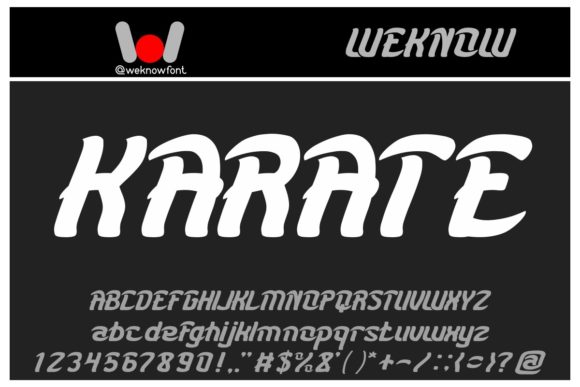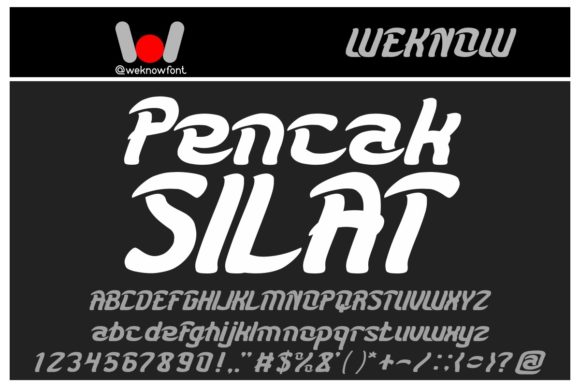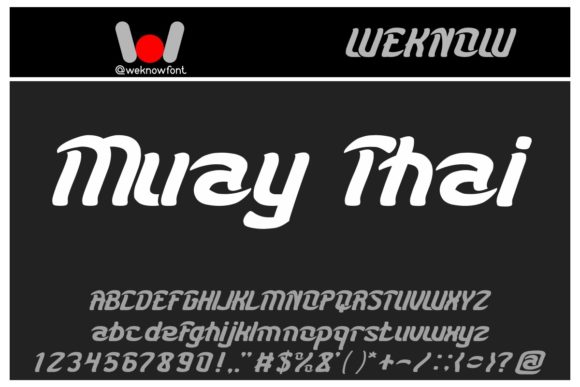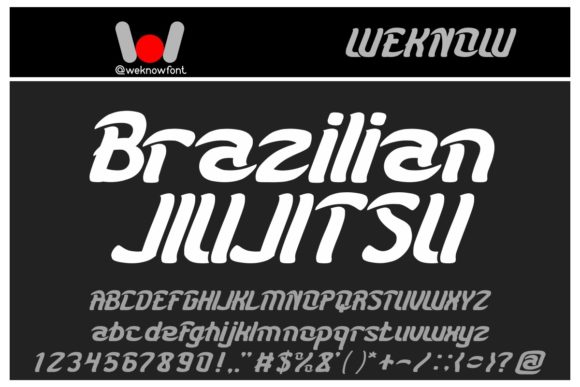
Karate Font
About the Karate Font
Unleash your creativity with Karate Font, a versatile font perfect for a wide range of applications. Karate is a fancy and unique display font, suitable for logo, logotype, headline font, corporate identity, brand identity, apparel industry, poster, music, movie, game, and many more items!
Karate’s bold, dynamic forms excel in headlines, logos, and short impactful text for posters and branding materials. Its strong personality makes it ideal for projects conveying power, energy, or a modern edge, particularly within the sports, entertainment, or technology sectors. Avoid using Karate for body text or extended reading; its highly stylized nature reduces readability in long passages.
Pairing Karate effectively requires considering its assertive character. A clean sans-serif like Open Sans or Lato provides a strong contrast and improves readability when used for supporting text. For a more playful feel, a rounded geometric sans-serif could be considered. Conversely, a refined serif font like Merriweather can add a touch of sophistication, balancing Karate’s boldness with a sense of classic elegance.
The font projects a modern, confident, and powerful personality, making it a strong choice for brands aiming for a bold and memorable visual identity. It’s less suitable for projects requiring a softer, more approachable aesthetic.